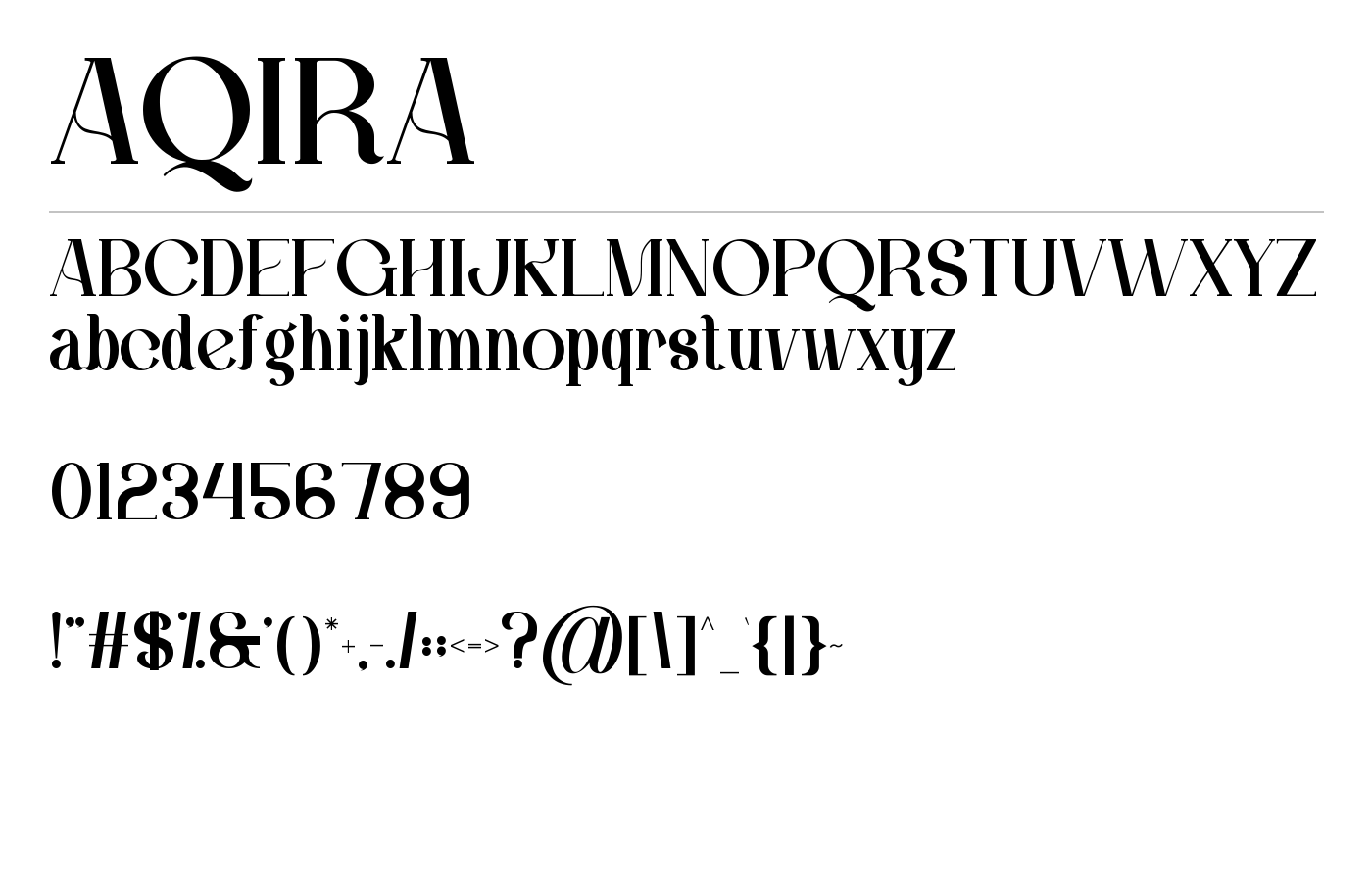
AQIRA is a stylish serif font that features high contrast between thick and thin strokes, giving it an elegant and refined look. Its unique letterforms, such as the delicate curves and distinctive tail on the Q, create a sophisticated and modern feel, making it perfect for luxury branding, fashion, and editorial use. With a graceful presence and clear readability, AQIRA works especially well for headlines, logos, and upscale design projects seeking a polished, artistic touch.
AQIRA Font